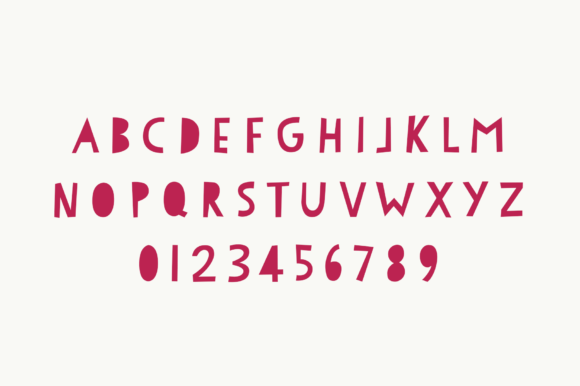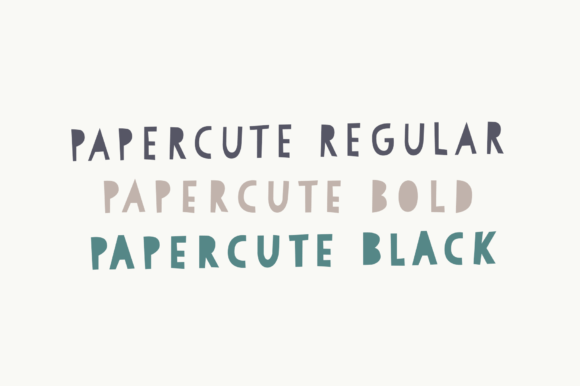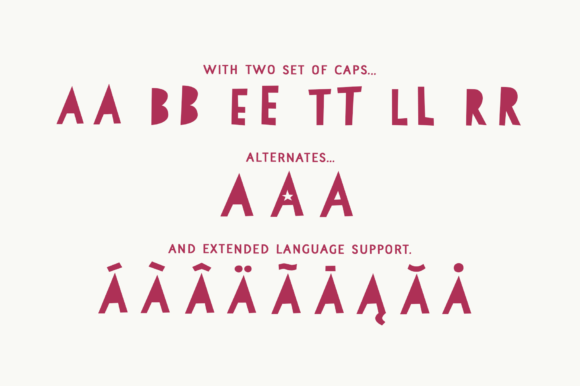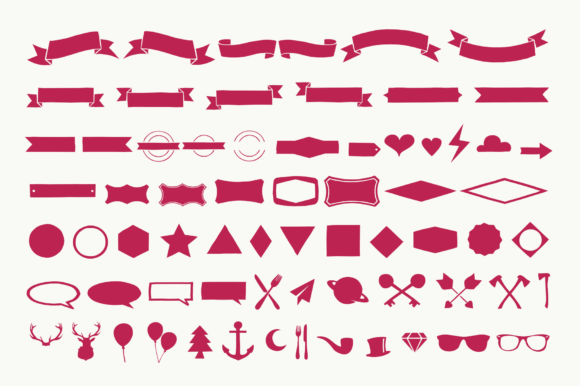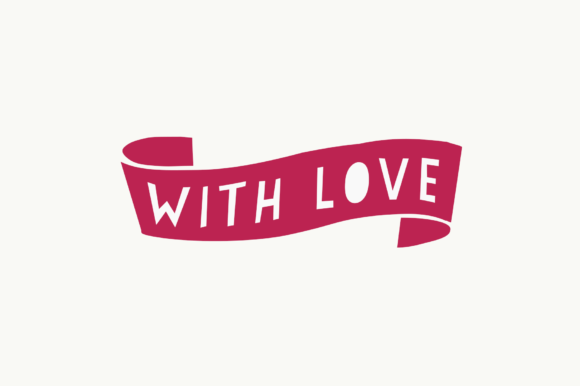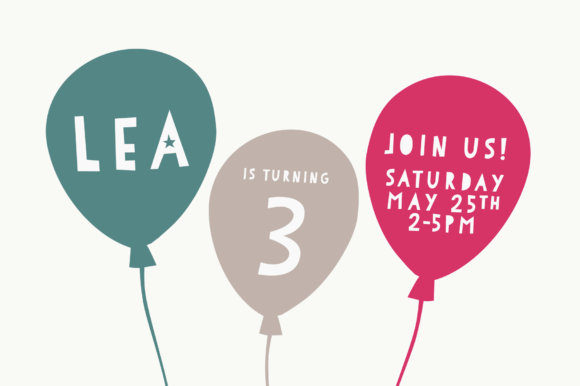
Introduction to Papercute Font
Papercute is a cute hand-drawn display font.
Inspired by paper cutting, this font is easy to read and easy to play with Small caps are a little different than caps to create alternative glyphs.
Key Features of Papercute Font
Why Choose Papercute Font?